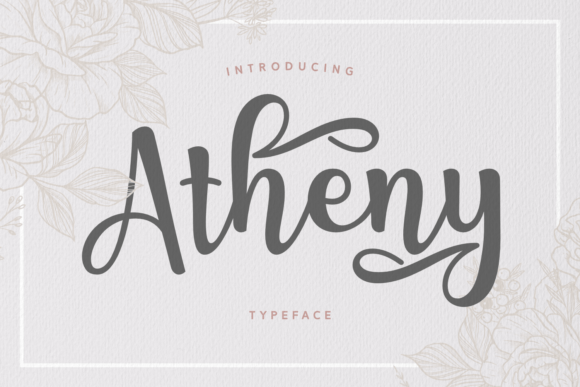
Dive into the world of Atheny Font, an exquisitely crafted script font family poised to elevate your digital creations to new heights of elegance and beauty. Let your typography designs dance with this masterpiece, infusing each character with grace and charm. Whether you're weaving words into wedding invitations, etching logos with timeless allure, or adding a touch of sophistication to watermarks, Atheny Font is your go-to companion.
With Atheny Font, your greeting cards will bloom with heartfelt sentiments, your business cards will exude professionalism, and your branding projects will radiate a magnetic aura. Transform ordinary labels into works of art, and let your creative endeavors shimmer with newfound brilliance.
Immerse yourself in the versatility of Atheny Font, effortlessly adapting to a symphony of design styles. From classic and vintage aesthetics to modern and contemporary expressions, this font family bends to your creative will. Unleash your imagination and watch as your designs take on a life of their own, captivating and enchanting your audience.
Unleash the power of Atheny Font, a font family meticulously designed to make your words dance off the page with captivating allure. Its PUA encoding grants you effortless access to a treasure trove of glyphs and swashes, empowering you to infuse your designs with a symphony of creativity. Create breathtaking monograms, weave intricate patterns, or simply let your imagination soar as you craft typographic masterpieces.